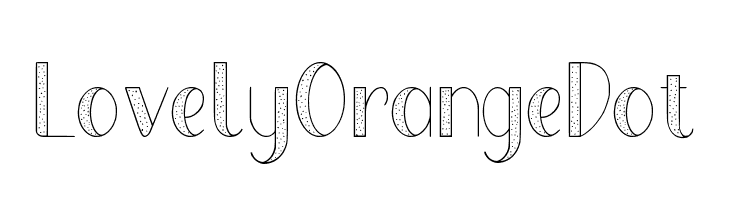
A playful, handwritten font with smooth, rounded edges and a casual style.
A whimsical and playful font with artistic flair and casual elegance.
Playful, hand-drawn font with tall, narrow characters.